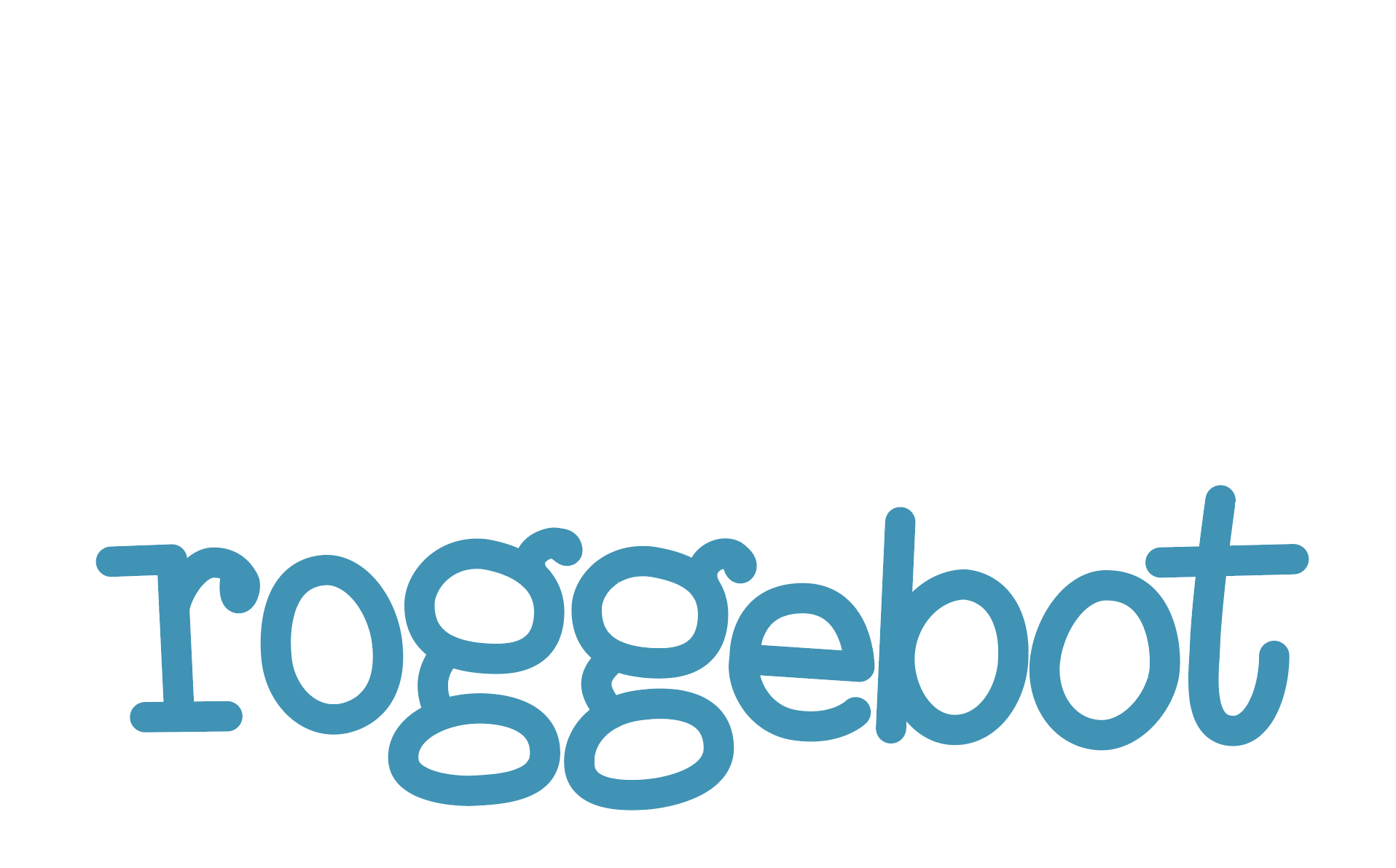
Wierd typewriter font with rounded edges and distingt g, r, b, t 8 months 1 week ago #1629
Dear fontlovers, i have tried to find this fond for quite a while (3 months of search and tools).
Is there anyone that can identify this font or a very close match?
I can't find anything close either.
I'm not sure this is a font.
• The two 'o's are different
• The two 'g's are different
• Some letters are slanted to the left while others are slanted to the right
and it’s indeed possible it’s multiple fonts as you mentioned.
can you think of a font that has the closest g?
The closest match I could find is: Andrea Typed by StuArt Foundry
those g's come very close indeed.
I got a picture from the original flag that the letters were used on.
I think it is a Rogbold